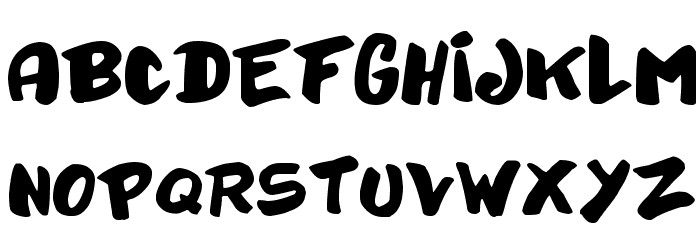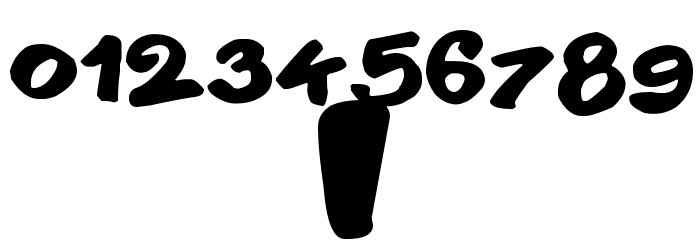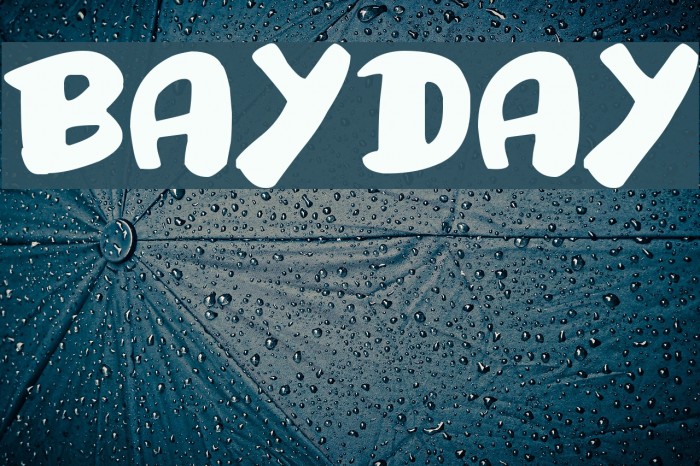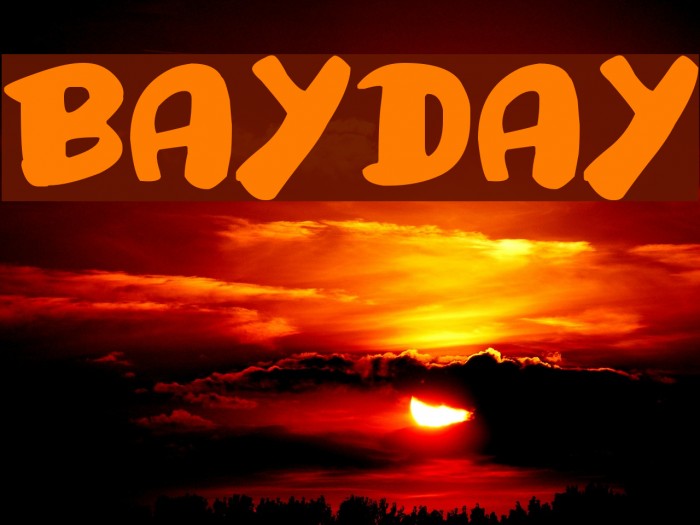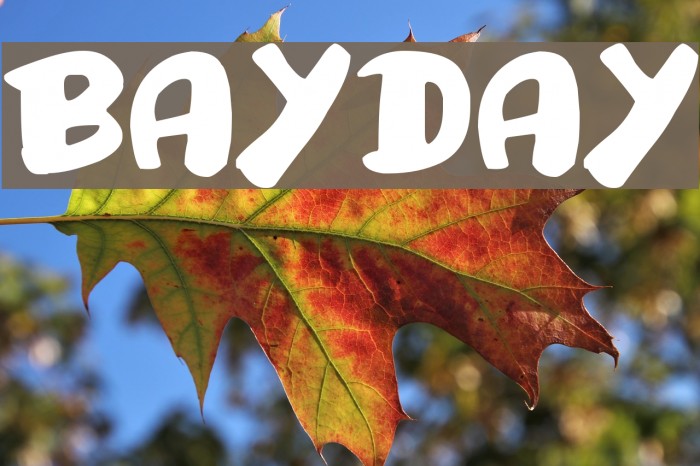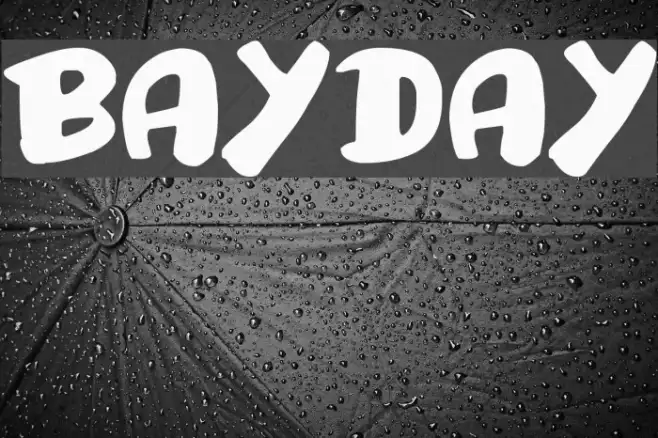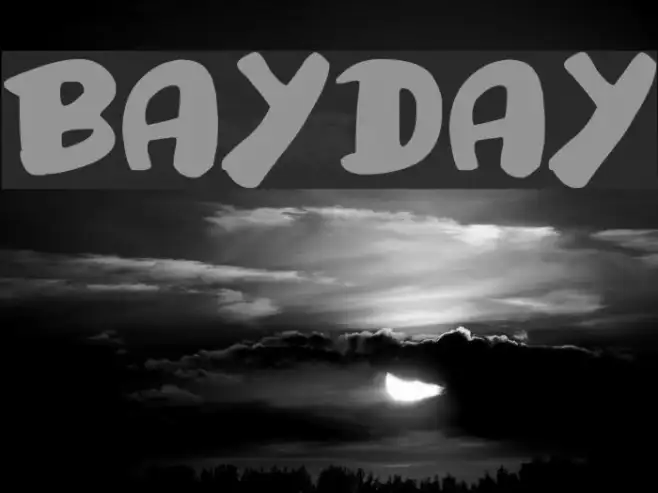
Bayday Font
This font features a bold, playful style with a handwritten appearance. The characters are thick and rounded, giving them a friendly and approachable look. The uppercase and lowercase letters maintain a consistent style, with a slight slant that adds a dynamic feel. The numbers are equally bold and maintain the same playful aesthetic. This font is ideal for projects that require a fun and informal touch, such as children's books, party invitations, or playful branding. The overall style is decorative and modern, making it suitable for eye-catching headlines or logos.
A bold, playful handwritten font with a modern, decorative style.
- Proposed Projects: Children's books, party invitations, playful branding, eye-catching headlines, logos.